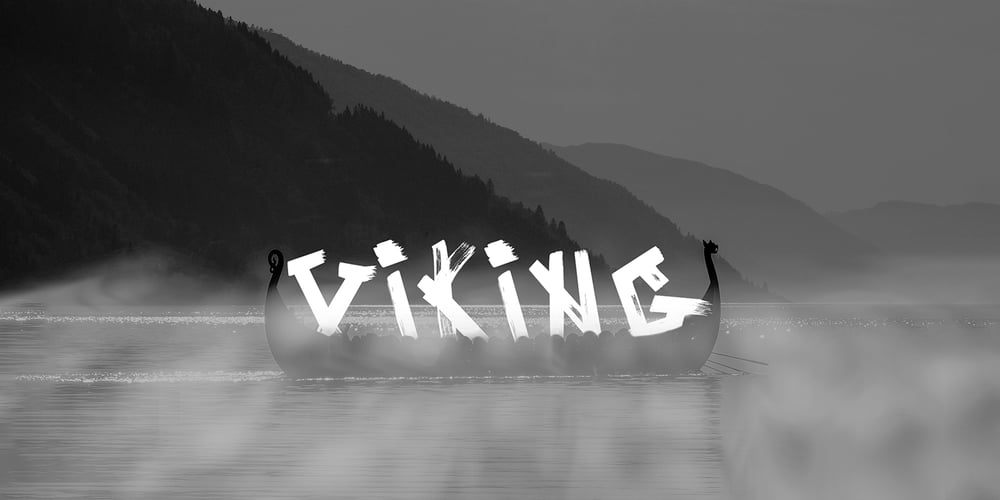
The Vikings Power
The Vikings Power font
The Vikings Power Font Family was designed by Aia Rai and published by Estudio Sunrise. The Vikings Power contains 1 styles and family package options. Embark on an epic journey with “Mythical Vikings Power,” a font infused with the might of Norse warriors, runes, and Viking ships. Channel their fearless spirit and unleash your creative potential in every design.Follow the link for more info: https://www.behance.net/gallery/137062963/Mythical-Vikings-Power-font